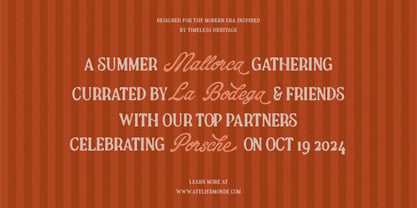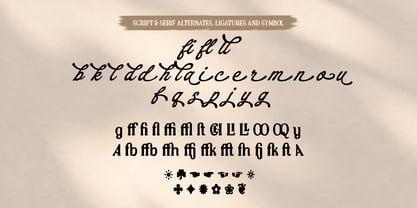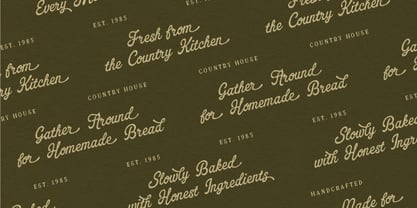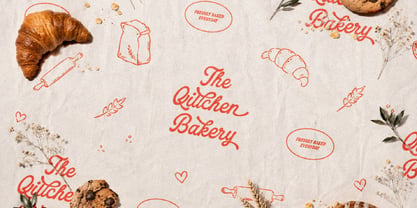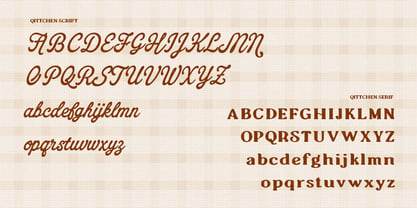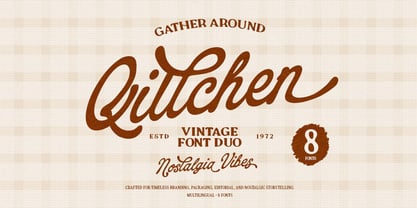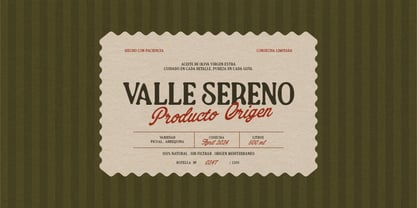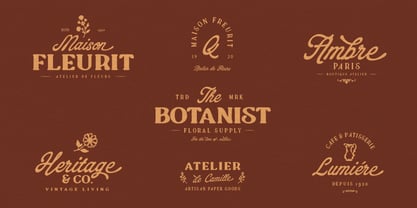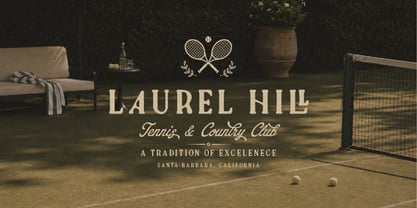
Qittchen
by Nollev
The Qittchen Font Family was designed by Akhmad Hidayat and published by Nollev. Qittchen contains 8 styles and family package options. More about this family
Qittchen is a hand-drawn vintage font duo that pairs an organically crafted casual script with a soft heritage serif. Every letter is carefully drawn to preserve the warmth, rhythm, and subtle imperfections of authentic handcrafted lettering, resulting in typography that feels natural, timeless, and full of character.
The expressive script captures the fluid movement of ink on paper, while the serif provides a classic foundation with soft vintage proportions. Together, they create a versatile type family suitable for branding, editorial design, and display typography.
Inspired by artisan bakeries, countryside cafés, vintage packaging, and traditional sign painting, Qittchen is ideal for logos, visual identities, product packaging, labels, restaurant branding, editorials, book covers, invitations, posters, and social media graphics.
The family includes 8 font styles, multilingual support, ligatures, stylistic alternates, and a complete character set with uppercase, lowercase, numerals, punctuation, and symbols.
Whether used together or individually, Qittchen delivers the warmth and authenticity of genuine hand-drawn lettering with the versatility required for modern design.